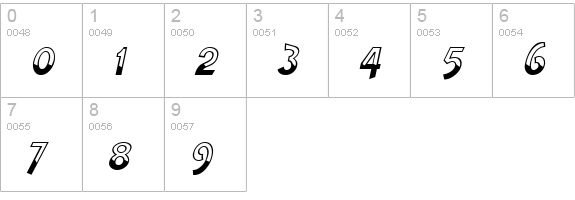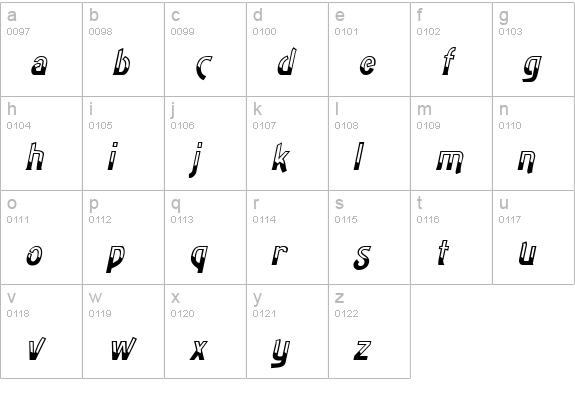
HighNoon Italic is a distinctive, italic variant in the HighNoon typeface family \xE2\x80\x94 well suited to design and typography projects.
HighNoon Italic is a stylish and modern font that exudes elegance and sophistication. With its sleek and flowing curves, this font is perfect for adding a touch of class to any design project. The italicized version of HighNoon brings a sense of dynamism and flair to your text, making it stand out from the crowd. What's even better is that HighNoon Italic is completely free to download at FontsMarket.com. So you can add this beautiful font to your collection without spending a dime. Whether you're working on a branding project, a website design, or a print advertisement, HighNoon Italic is sure to elevate your work to the next level. Download it now and see the difference it can make in your designs!